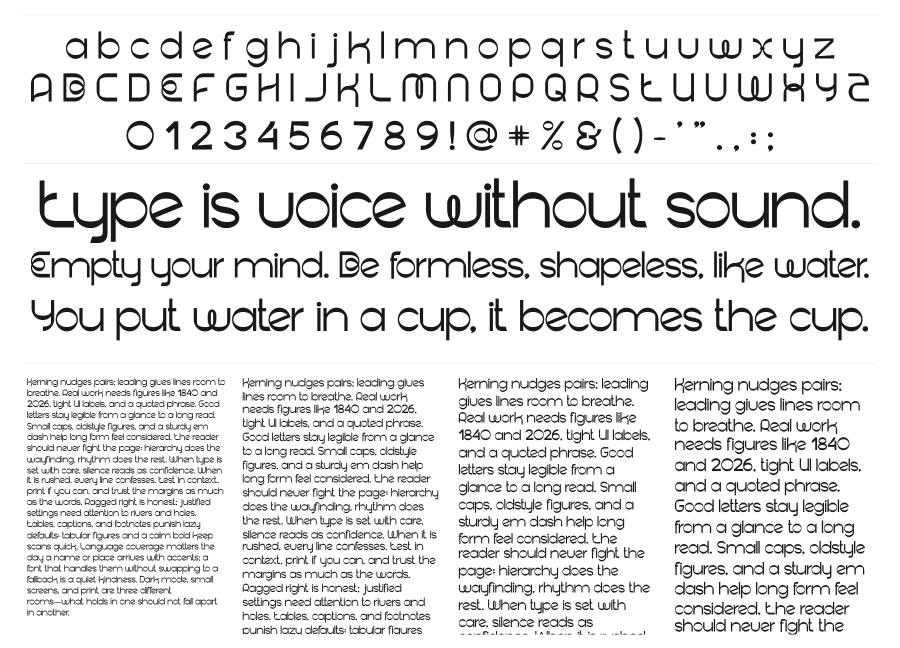
Bakego
Bakego is a bold geometric sans built on circular, near-monoweight strokes with wide, open proportions. It draws from the warmth of 1970s geometric type design, sitting somewhere between functional modernism and approachable friendliness. Strong at headline and logo sizes, especially for brands that want clean geometry without feeling cold.